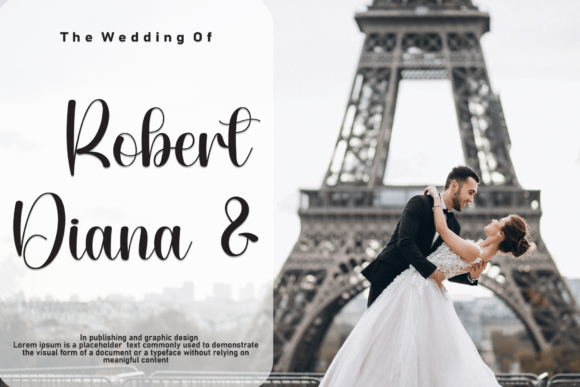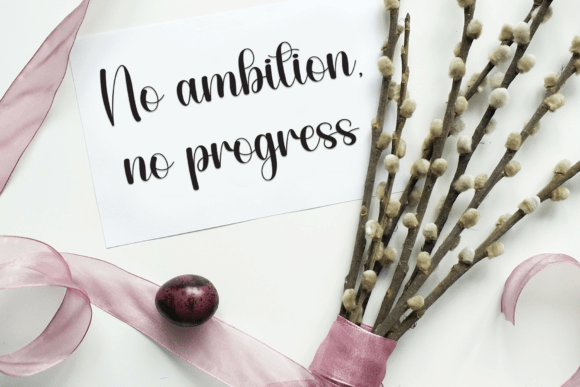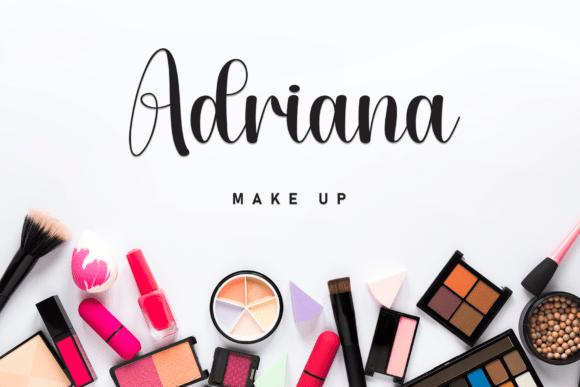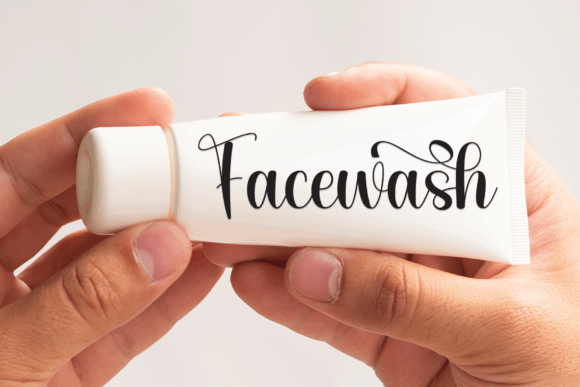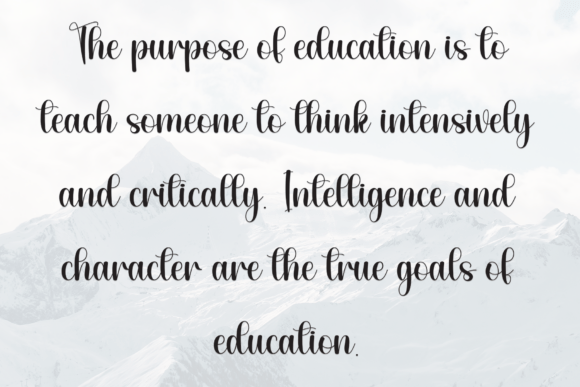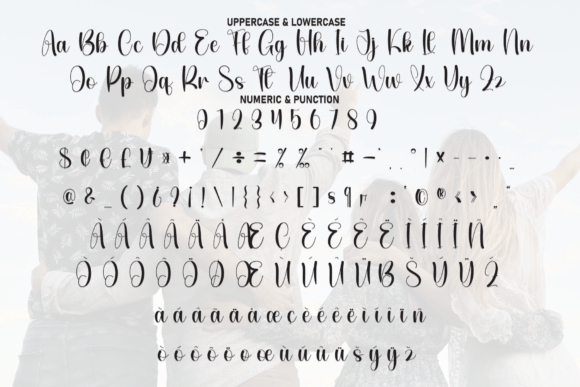
The Elusive Perfect Font: My Journey with Friends Font
I still remember the design project that led me to discover Friends Font. I was working on a wedding invitation suite, and my client had a very specific vision: elegant, yet playful; sophisticated, yet approachable. As I scrolled through font after font, nothing seemed quite right. That’s when I stumbled upon Friends Font, and it was love at first sight! ✨
An Honest Review of Friends Font
The Good, the Great, and the Lovely
• ✅ Elegant and refined: Friends Font exudes sophistication and poise, perfect for high-end branding and stationery.
• ✨ Unique character: Its handwritten script style sets it apart from more traditional fonts, adding a touch of personality to any design.
• 🌈 Versatile: From formal invitations to playful crafts, Friends Font adapts seamlessly to various design contexts.
• 💫 Beautifully crafted: The font’s attention to detail and flowing curves make it a joy to work with.
While Friends Font is an exceptional typeface, it’s not without its quirks. 🤔 For instance:
• ⚠️ Limited use in very small sizes: Due to its intricate details, Friends Font can become blurry or difficult to read when used in very small sizes (below 10-12 points).
• ⚠️ Not ideal for body text: While it’s stunning for headings and titles, Friends Font’s script style can be tiring to read in long paragraphs.
A Practical Guide to Using Friends Font
The Story Behind Friends Font
Friends Font was designed with the intention of capturing the essence of elegance and freshness. Its creator aimed to craft a typeface that would add a delicate, personal touch to various design projects. Inspired by the flowing curves of handwritten scripts, Friends Font brings warmth, beauty, and creativity to any design.
Q: What makes Friends Font unique?
A: Friends Font’s unique character comes from its elegant, handwritten script style, which sets it apart from more traditional fonts.
Q: Is Friends Font suitable for body text?
A: While Friends Font is stunning for headings and titles, it’s not ideal for long paragraphs of body text due to its script style.